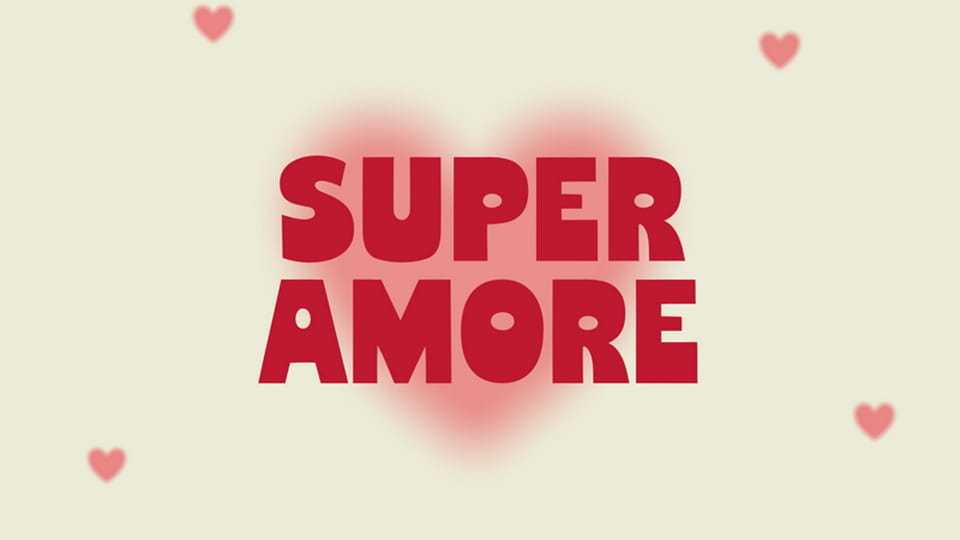
Download Super Amore font, a bold, rounded display typeface designed to express warmth and positivity. Its soft curves and smooth letterforms create a friendly and approachable feel, making it perfect for emotional and uplifting designs.